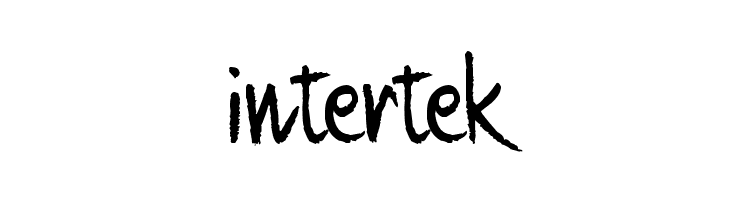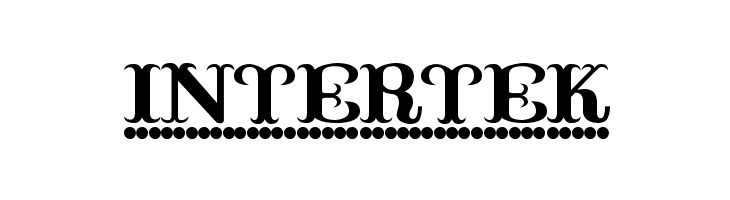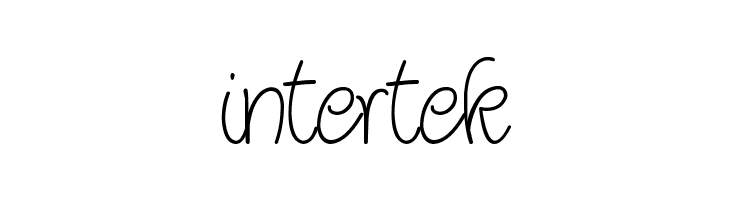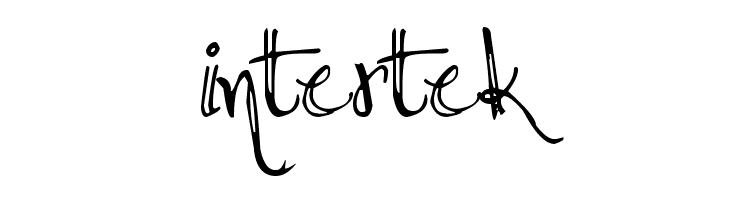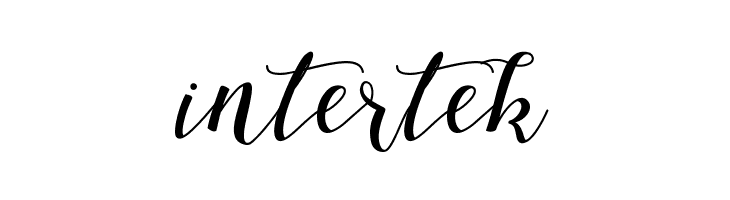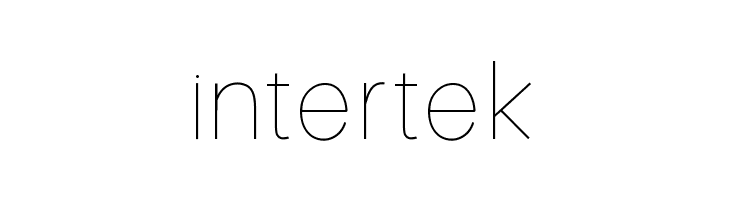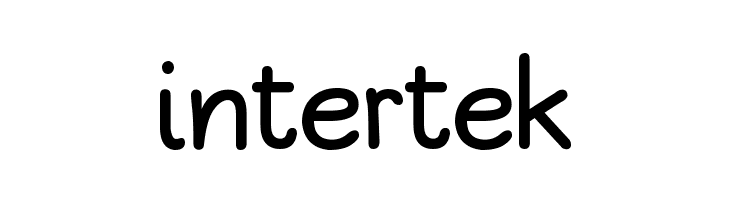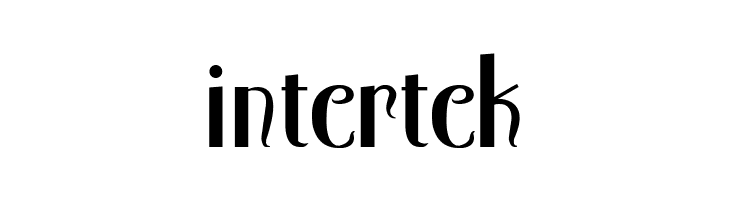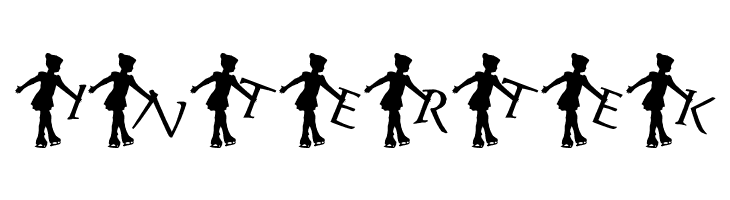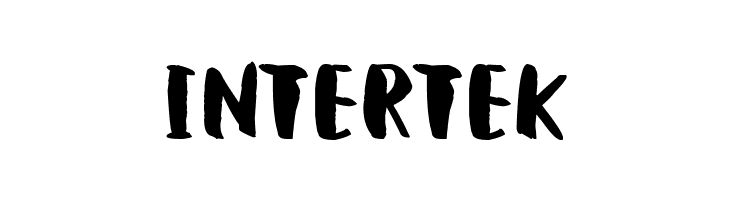
A playful, rounded font with smooth curves and consistent stroke width.
A bold, modern-vintage font with flowing curves and sharp edges.
A decorative font featuring dancer silhouettes integrated with each letter.
A bold, brush-style font with an energetic and handcrafted appearance.
A condensed, italic serif font with elegant, elongated strokes.
A bold slab serif font with strong, block-like serifs and a commanding presence.
A classic slab serif font with a condensed and modern design.
A classic, italicized font with moderate contrast and elegant styling.
A modern slab serif font with bold serifs and clean lines.
A clean, modern font with consistent stroke width and elegant design.
A light, elegant italic font with refined proportions and smooth flow.
A playful handwritten font with uneven strokes and a casual style.
A bold, distressed font with an industrial, concrete-like texture.
A modern, geometric font with clean lines and a futuristic feel.
A playful, rounded font with a bold and modern design.
A bold, impactful font with thick strokes and a modern geometric influence.
A lively and expressive handwritten font with bold, dynamic strokes.
A bold, decorative font with a playful, circus-inspired style.
A whimsical, curly handwritten font with playful loops and dynamic strokes.
A dynamic and expressive handwritten font with fluid, artistic letterforms.